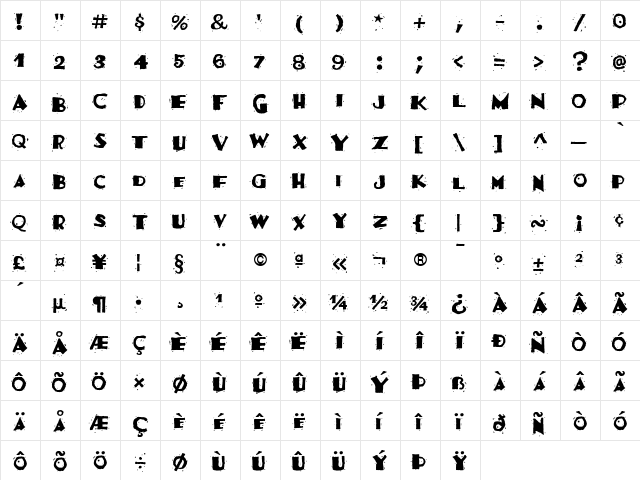
FajitaICG Regular
Design Context for FajitaICG Typeface
FajitaICG is a composed and adaptable typeface that performs quietly and consistently across a wide range of design contexts.